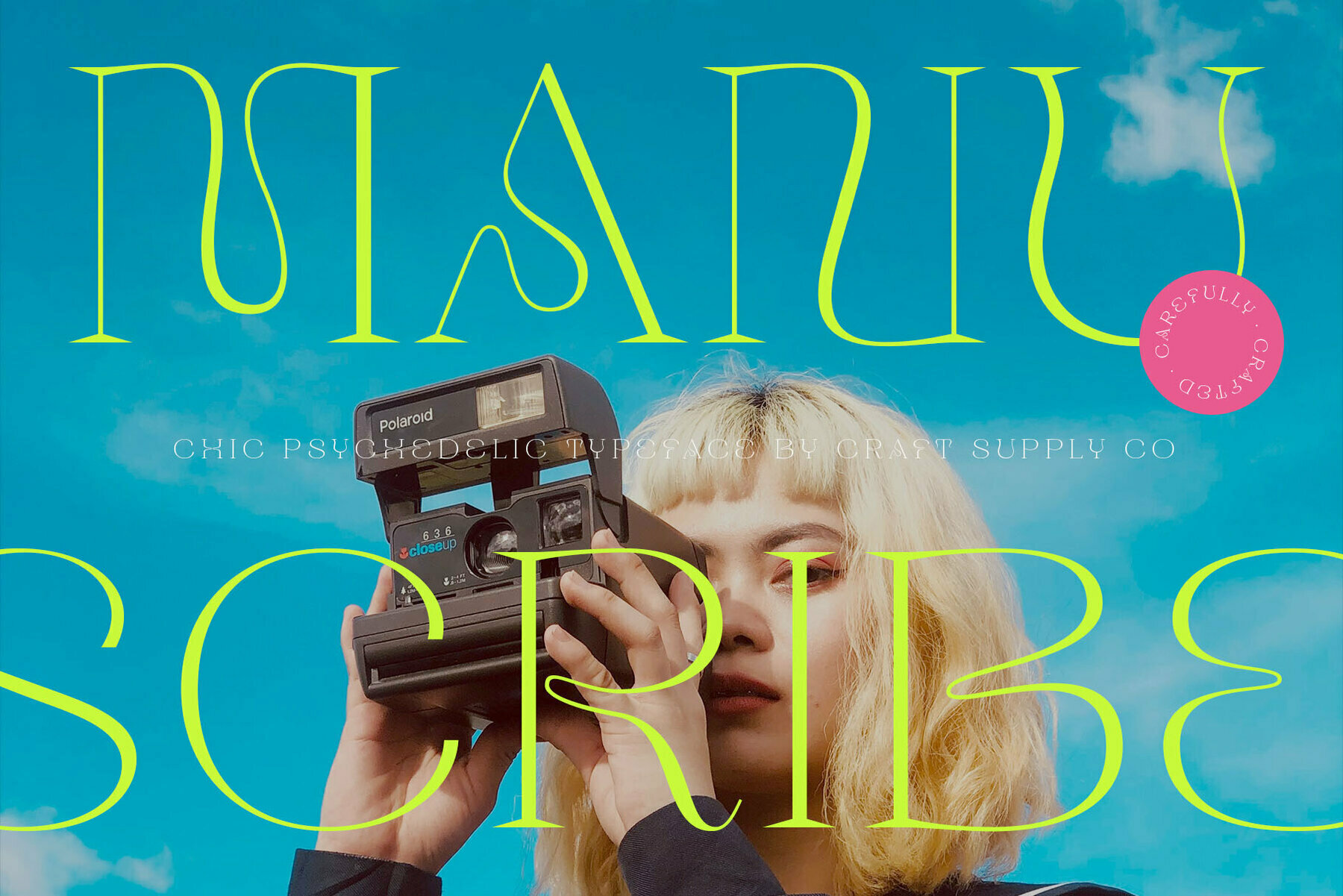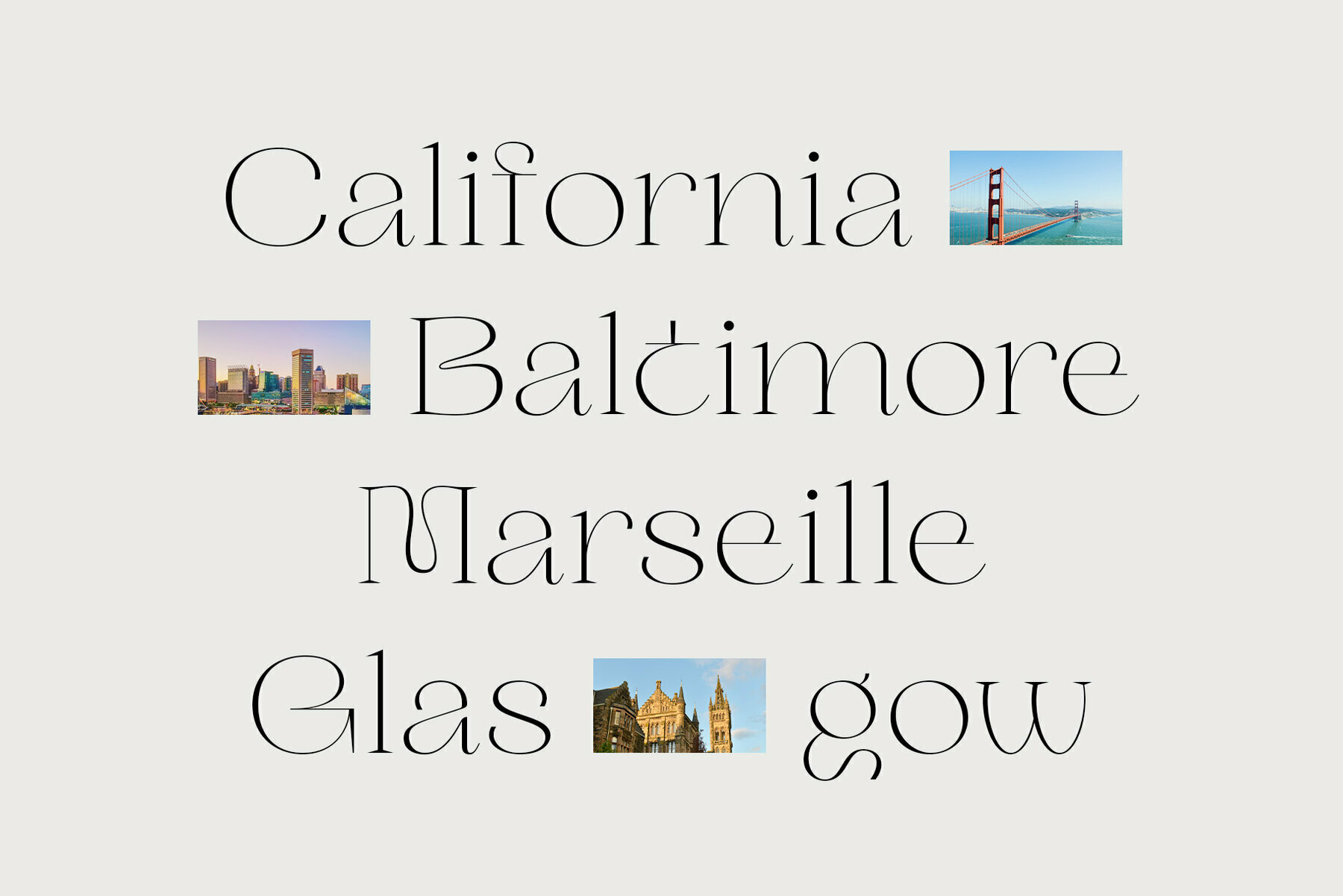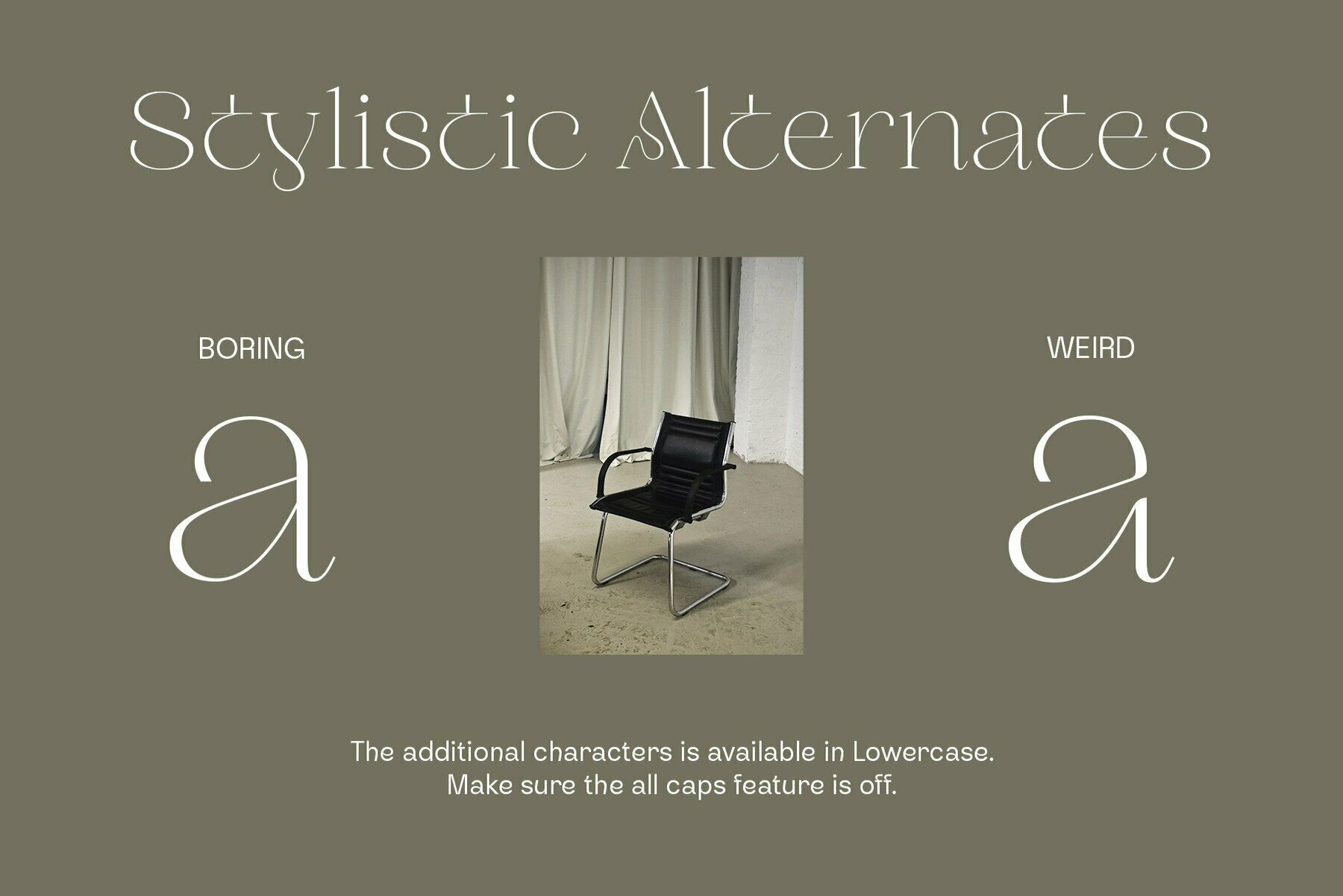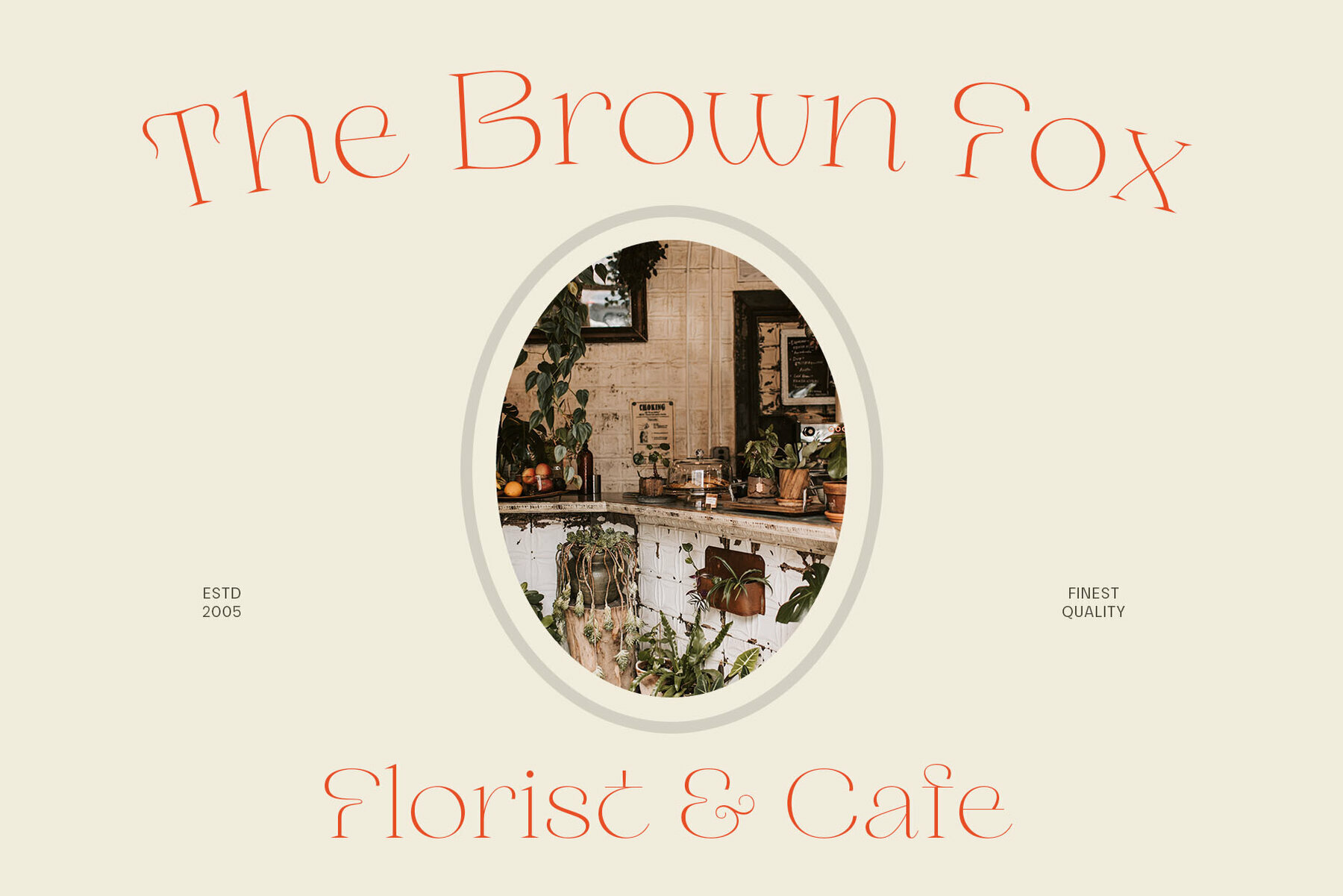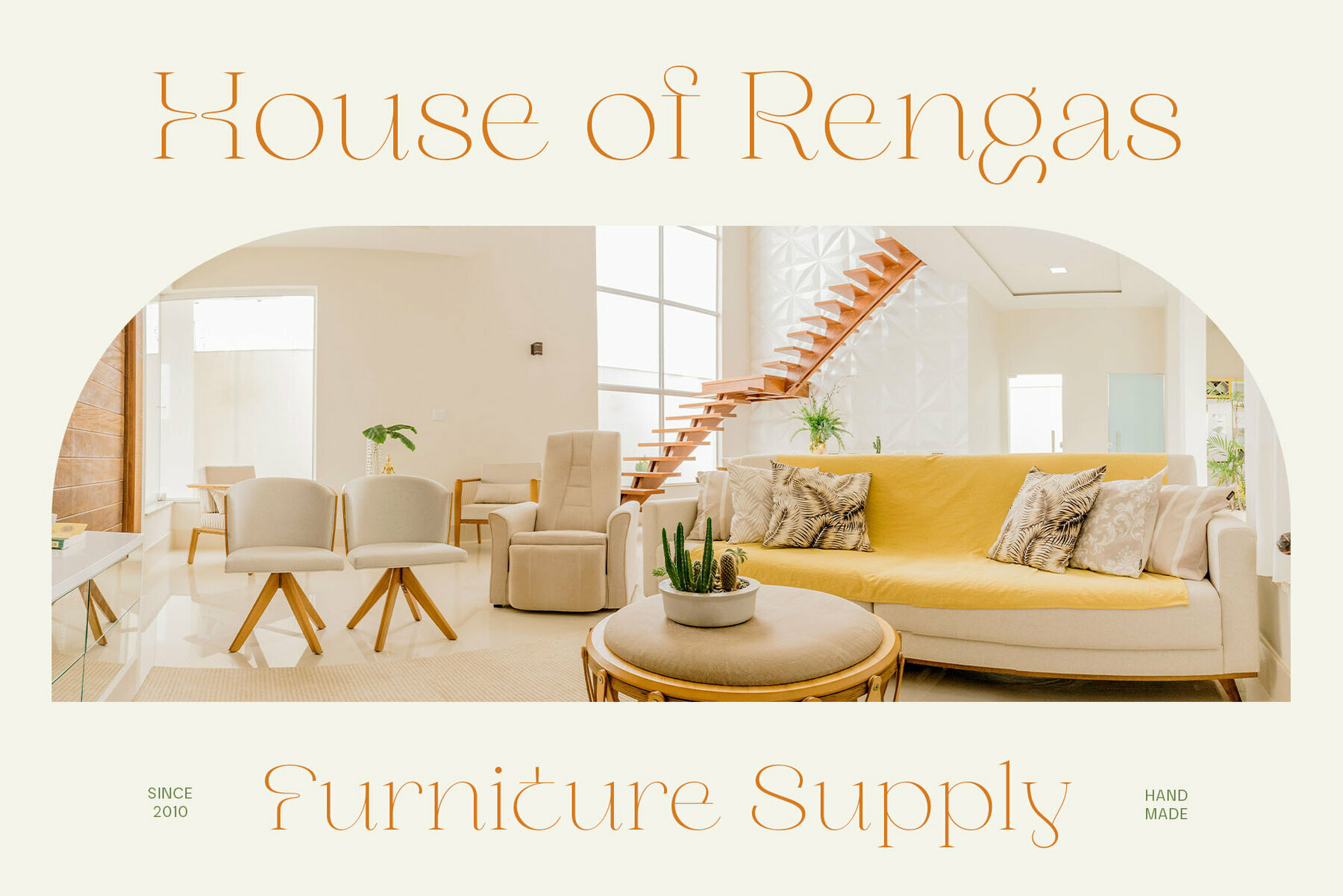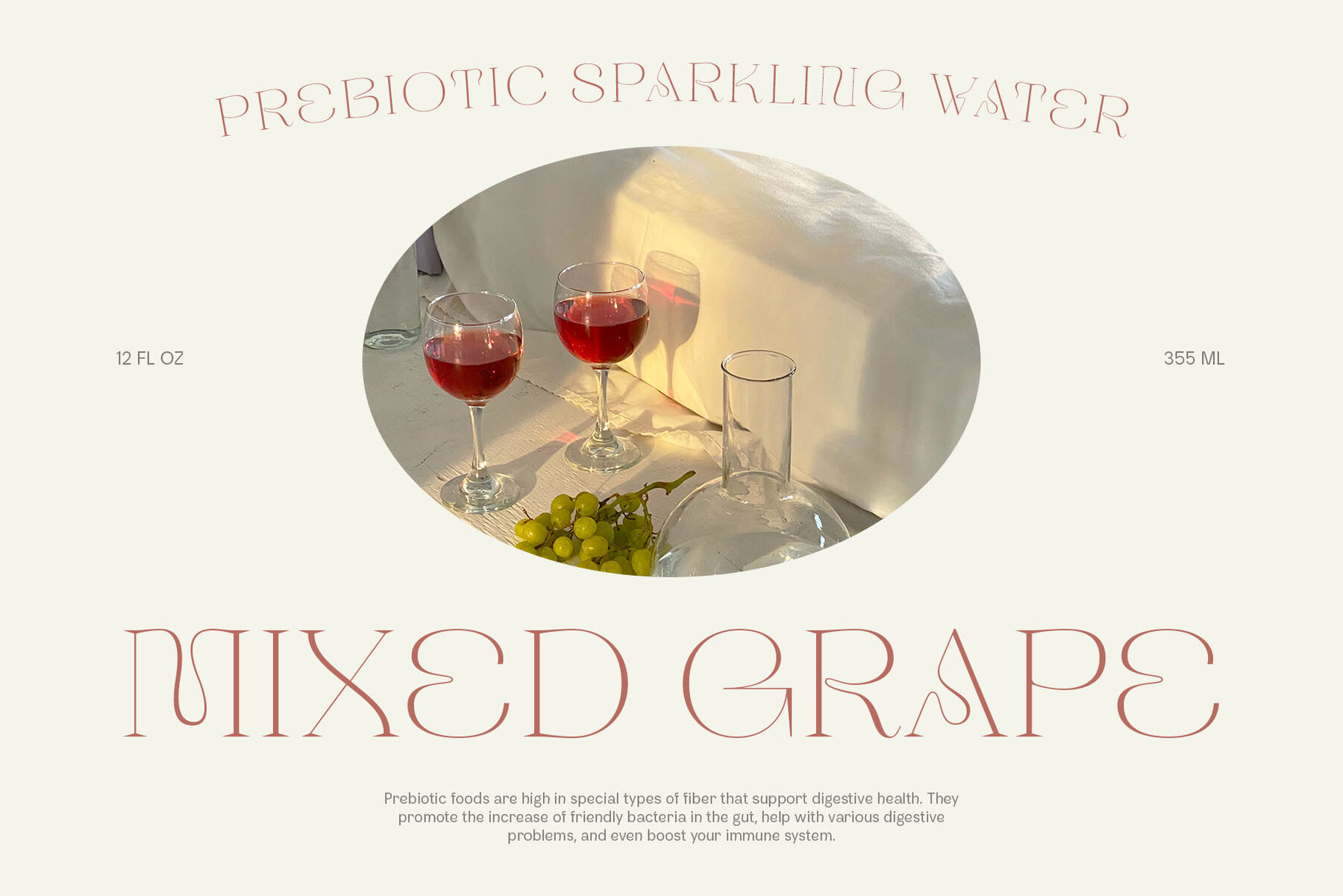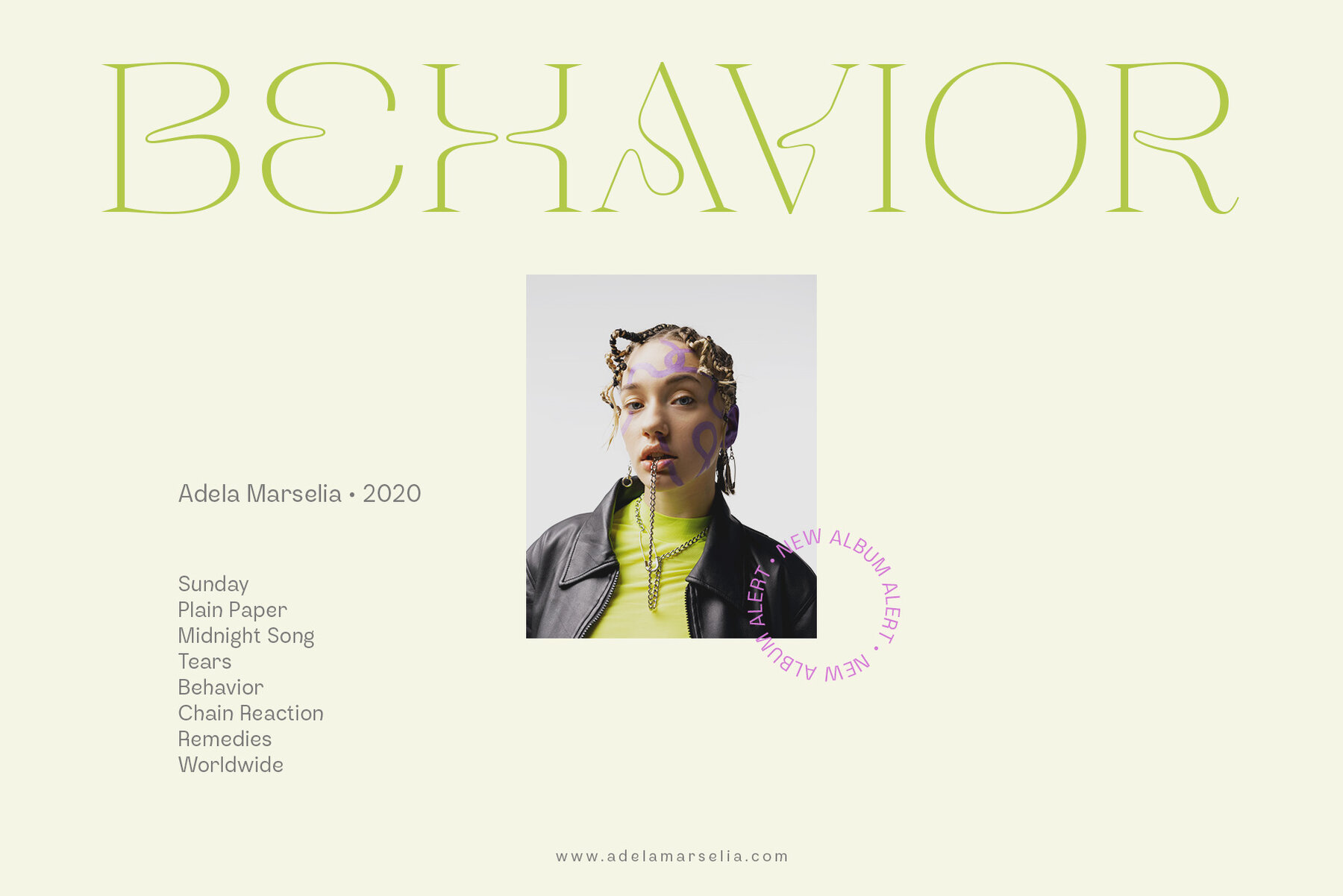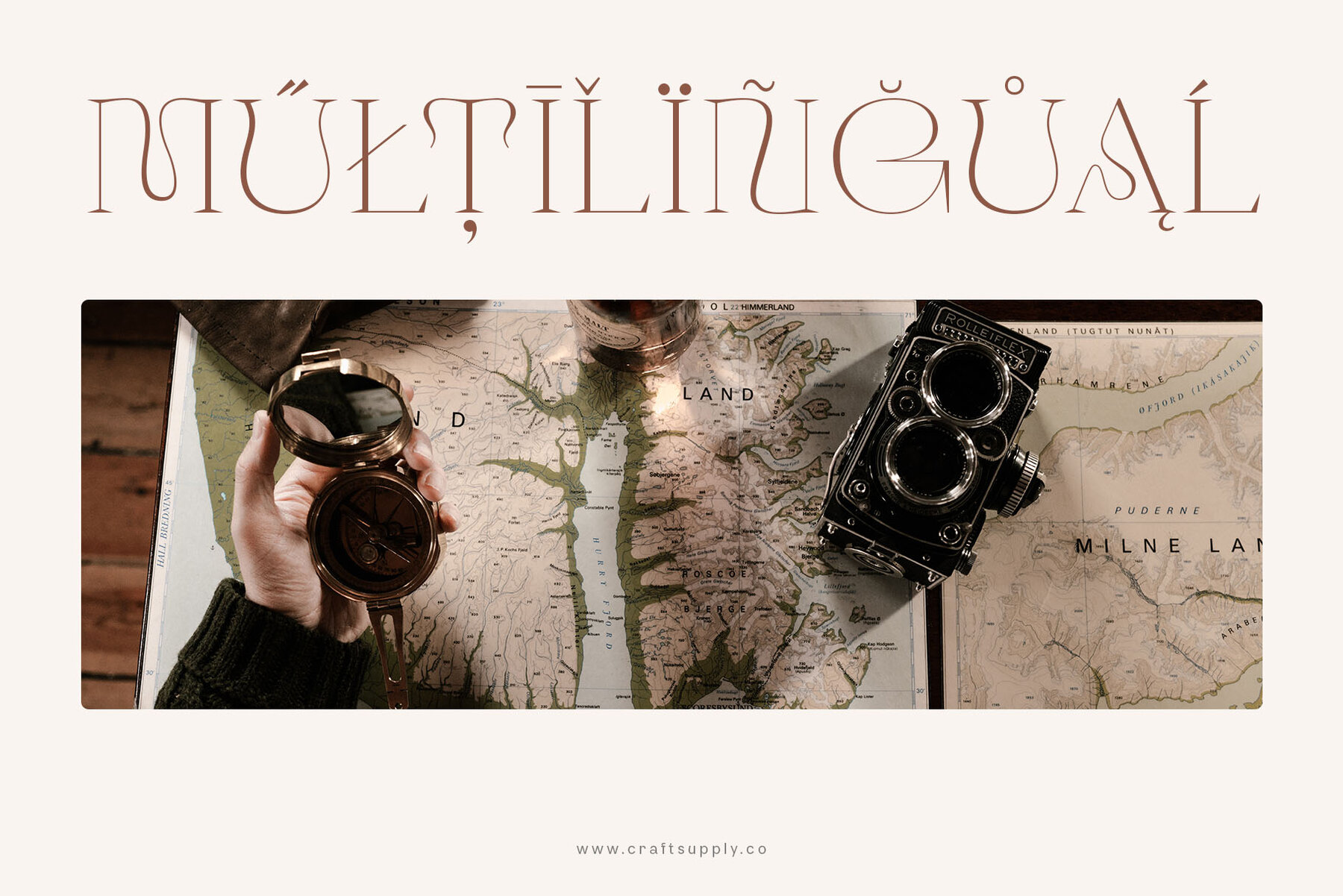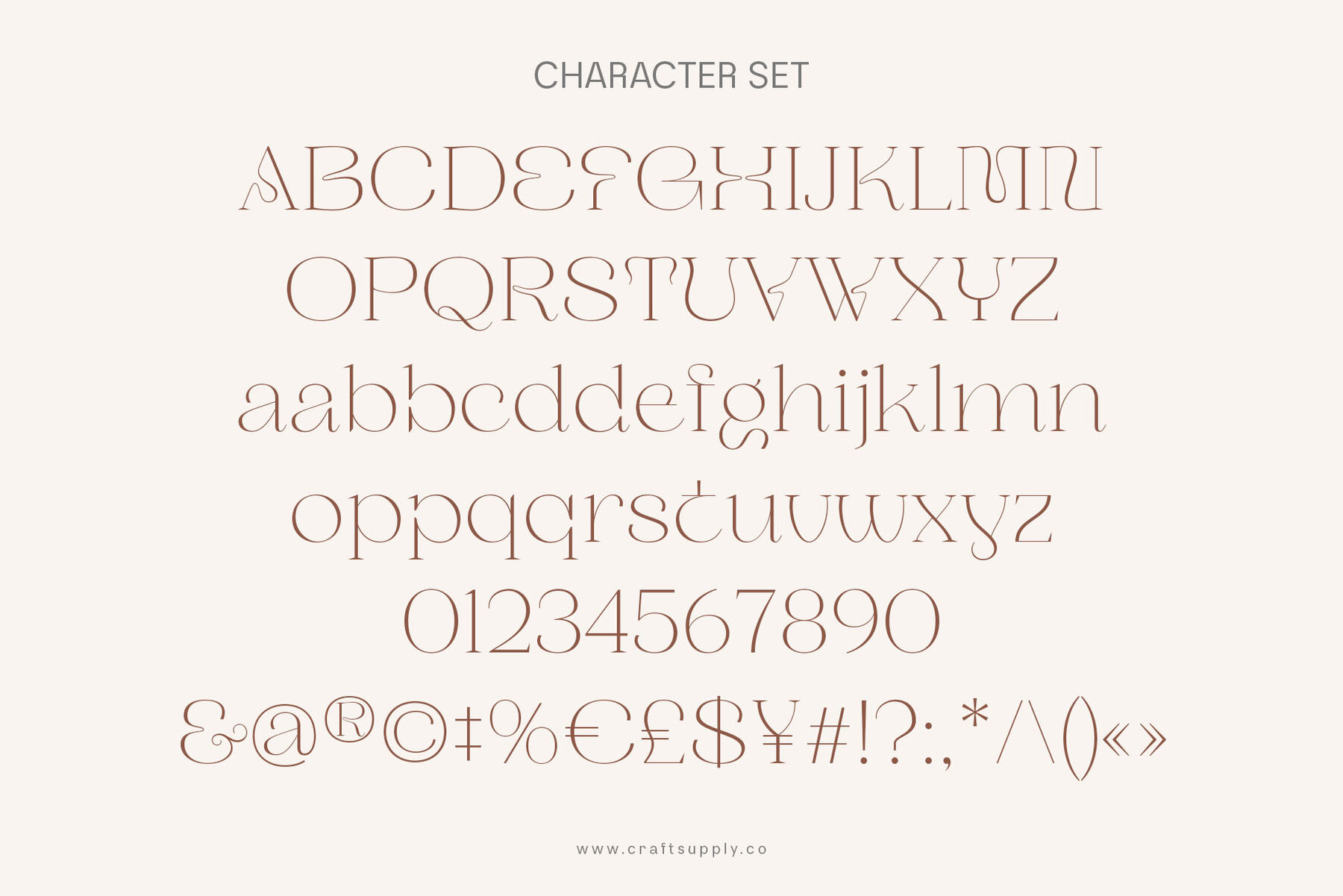
Manuscribe Font
Manuscribe offers a unique addition to any designer's toolkit, boasting a psychedelic style that pairs smooth flow with sharp serifs ideal for display or brief text. Its versatility makes it a fitting choice for a variety of design projects, from print materials to digital creations. Let Manuscribe enhance the vibrancy of your greeting cards, packaging, brand identities, DIY projects, book titles, and wedding fonts. This typeface brings an eclectic touch to pop vintage and retro designs.Manuscribe: Psychedelic Typeface With Sharp Serif